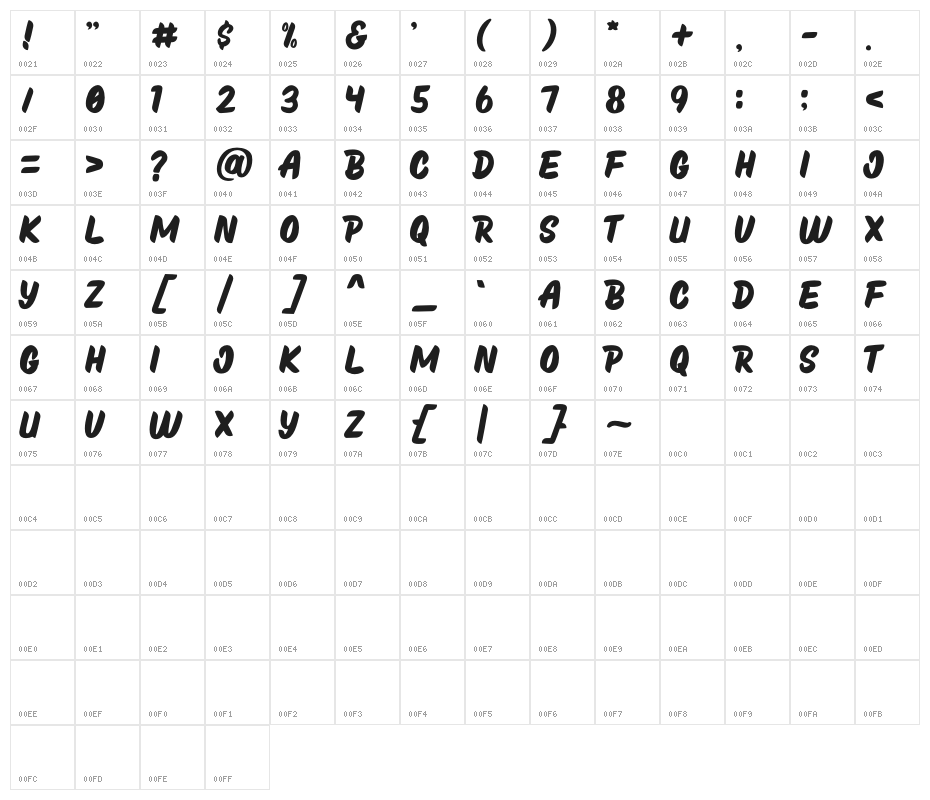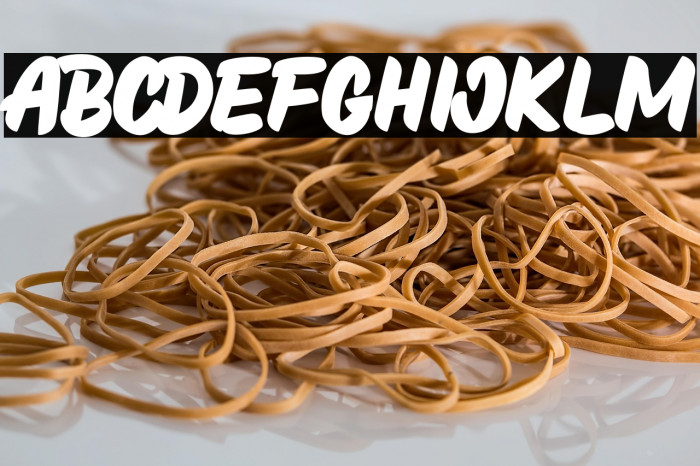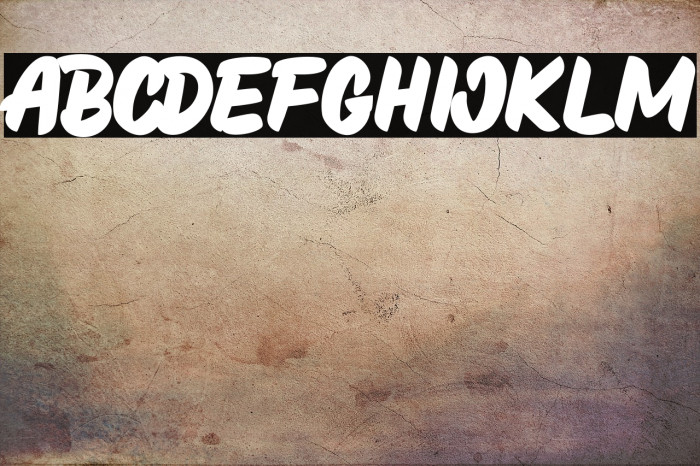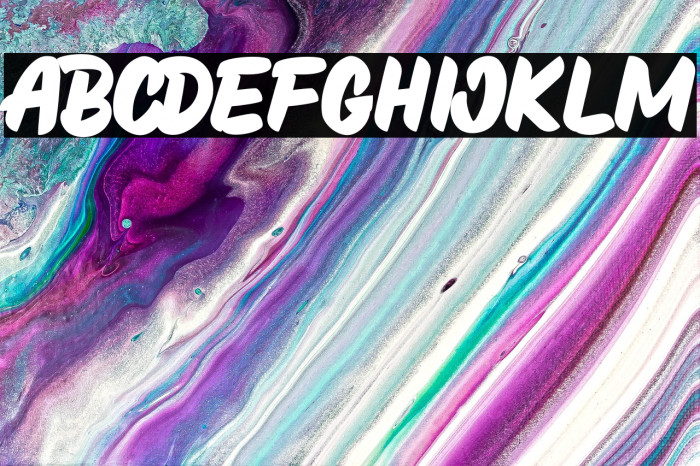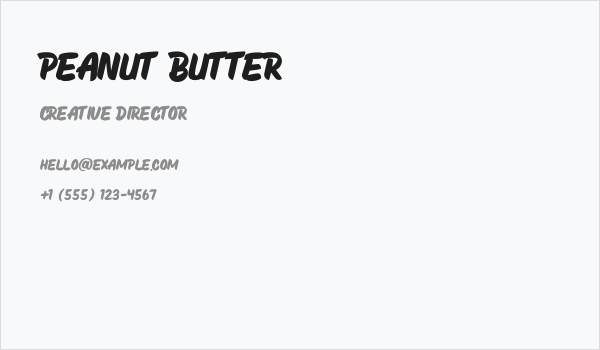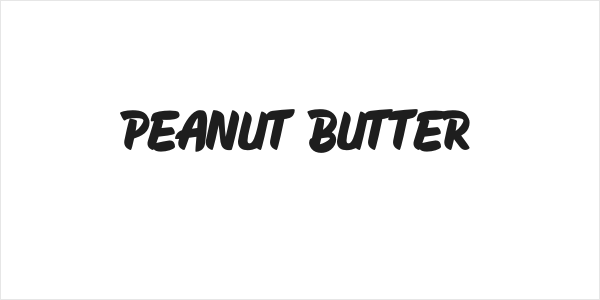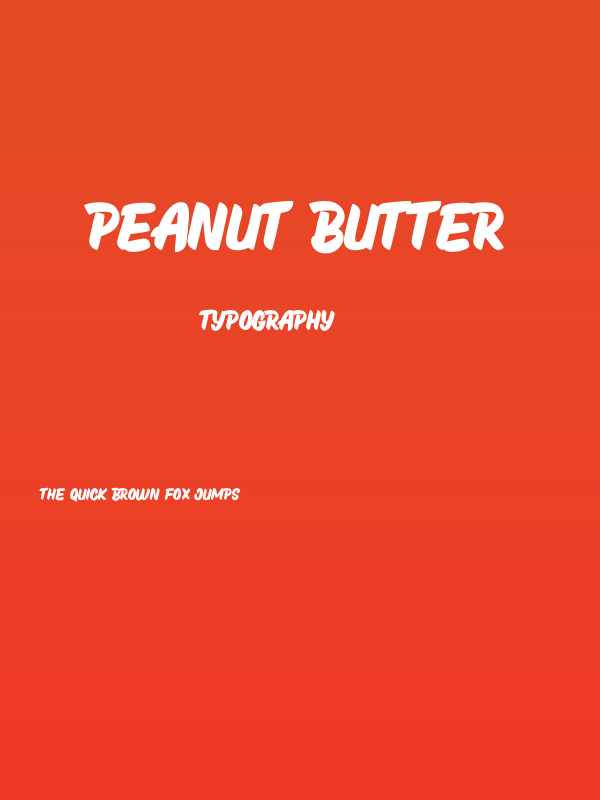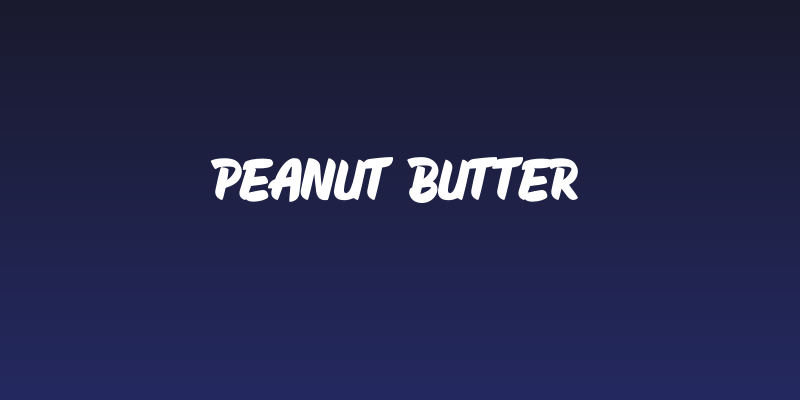
PEANUT BUTTER Font
PEANUT BUTTER Description
This font features a bold, energetic style with a handwritten flair. The letters are thick and rounded, giving a playful and dynamic appearance. The strokes are consistent in weight, creating a uniform look across all characters. The uppercase and lowercase letters maintain a cohesive style, with a slight slant that adds to the casual, informal feel. Numbers and special characters are designed to match the overall aesthetic, ensuring versatility in various design contexts. The font's boldness makes it stand out, perfect for grabbing attention.
Overall StylePlayful, Casual
Proposed ProjectsIdeal for branding, posters, social media graphics, and playful packaging designs.